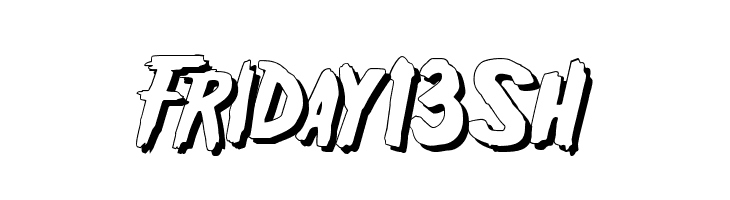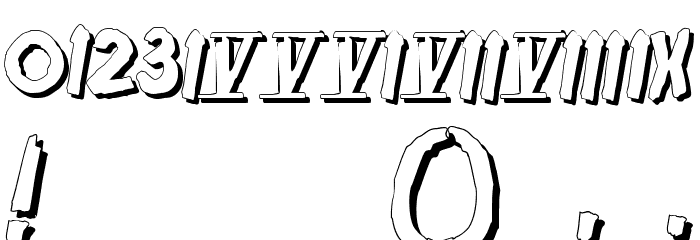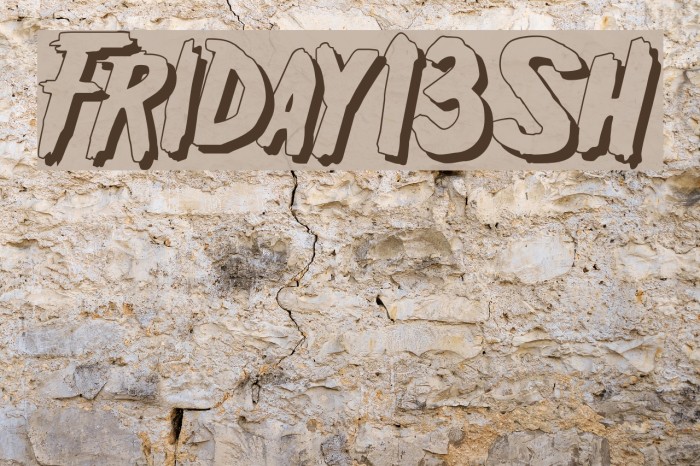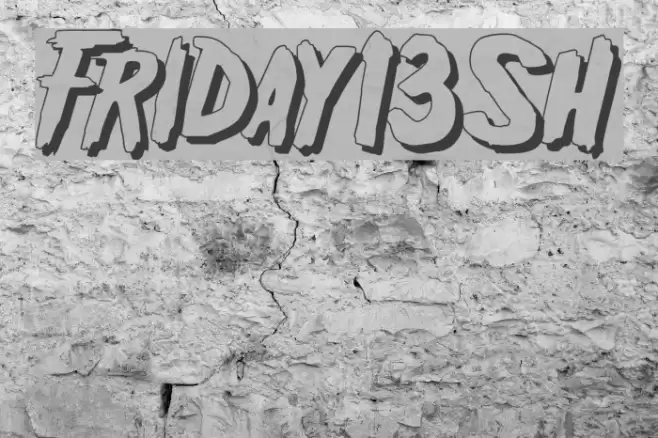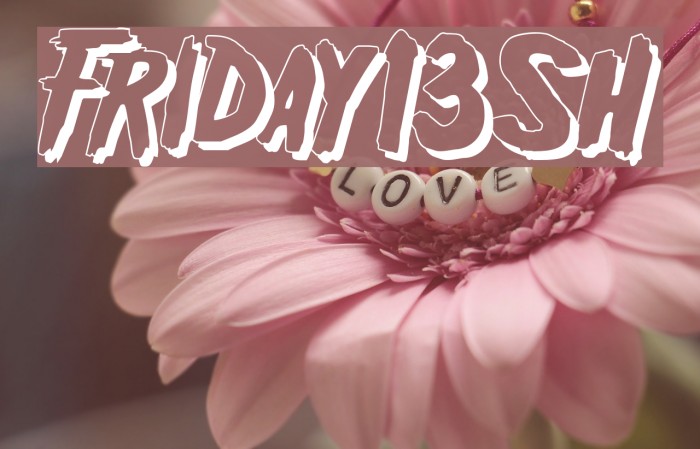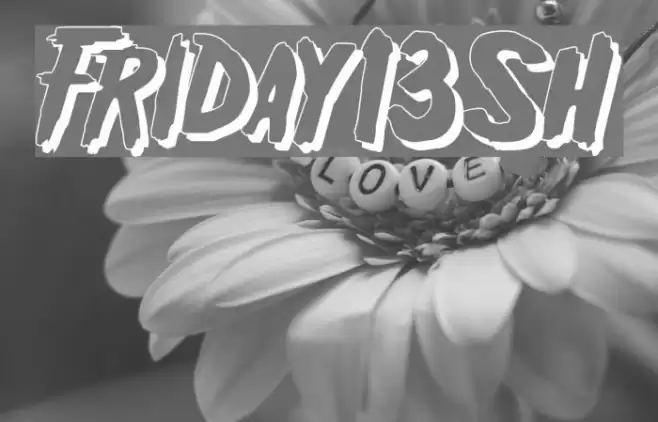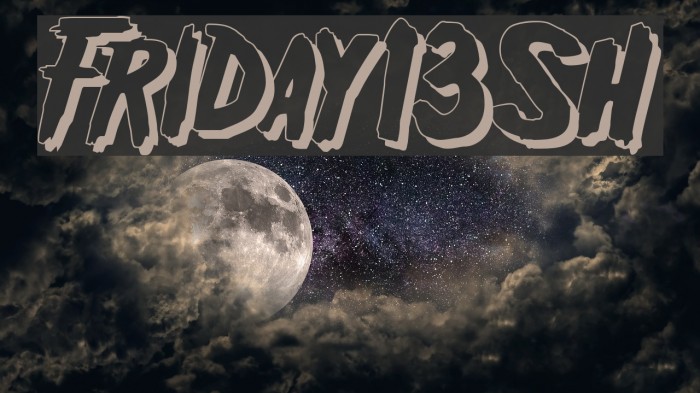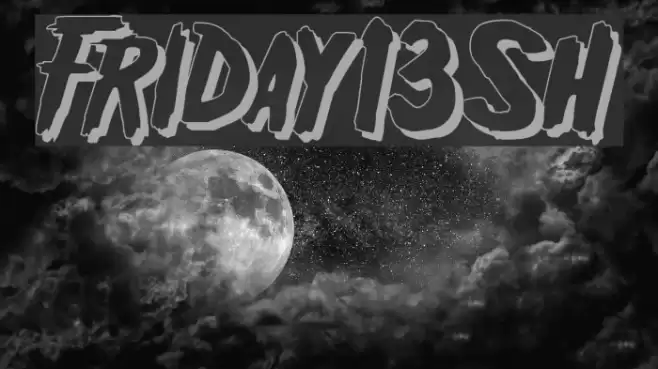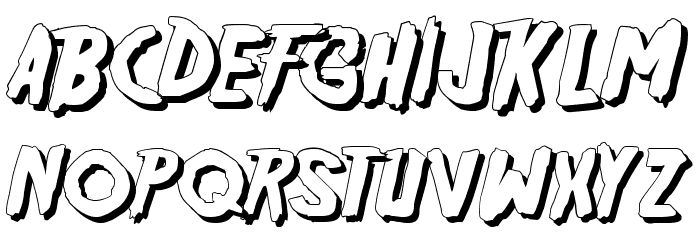
Friday13SH Font
Friday13SH Description
This font features a bold, dynamic style with a three-dimensional effect that gives it a shadowed appearance. The letters are uppercase and have a hand-drawn, graffiti-like quality, making them stand out with their thick, uneven strokes. The numbers and special characters maintain this bold, shadowed style, ensuring consistency across all characters. The font's playful and energetic vibe makes it suitable for eye-catching designs.
| Proposed Projects | Ideal for posters, album covers, video game titles, and any project requiring a bold, eye-catching display font. |